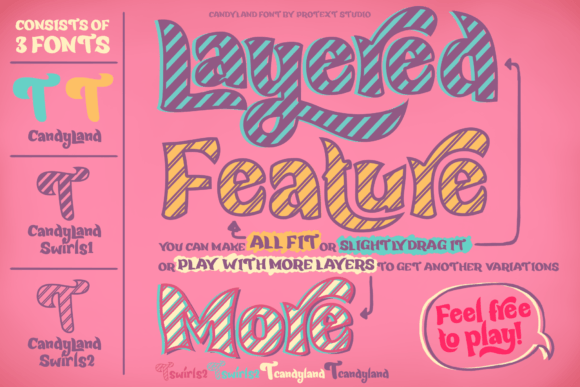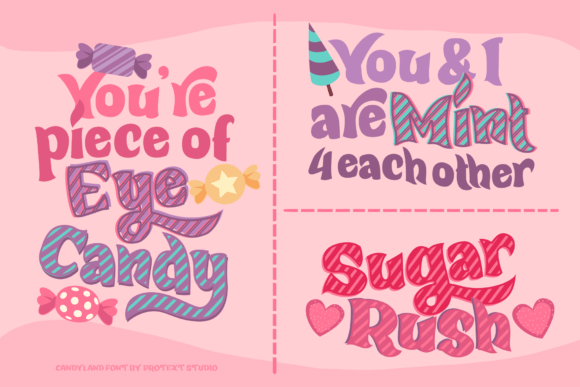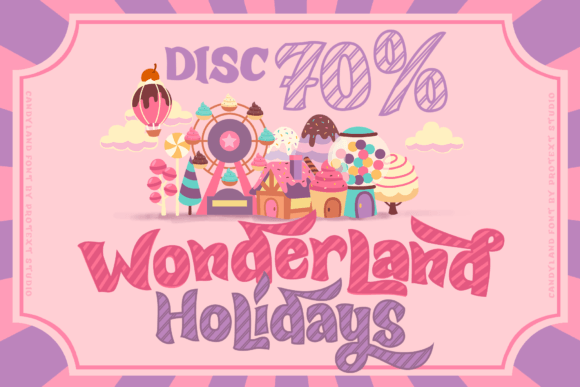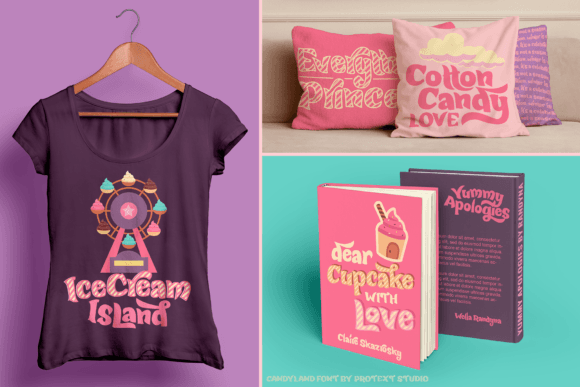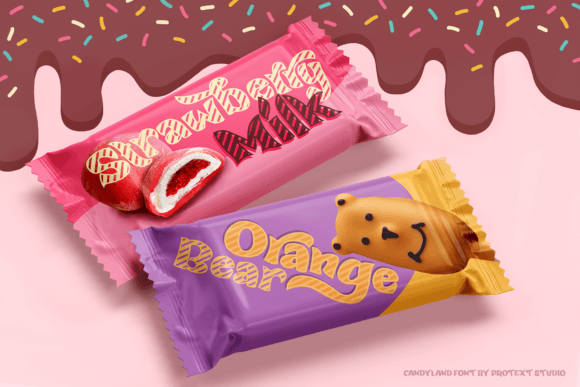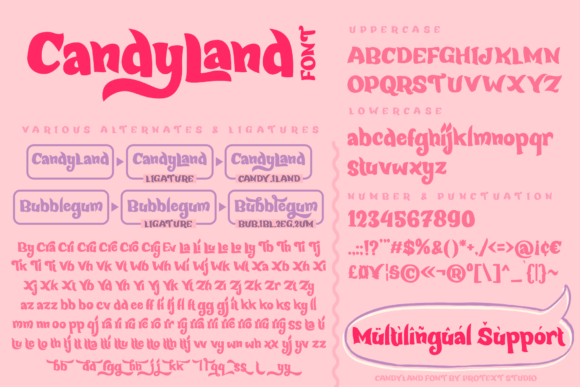
Discover the Sweetest Addition to Your Design Arsenal
Remember the joy of creating a magical world for kids, where gumdrop trees and lollipop forests come alive? For designers who have ever wanted to capture that whimsy in their projects, we have exciting news. Introducing the Candy Land Font, a delightful display font that brings a touch of childhood wonder to any design.
This charming font consists of three individual fonts that can be used on their own or layered together for a truly unique look. Plus, as a bonus, you’ll get 25 transparent PNG images to take your designs to the next level. With its PUA encoding, accessing the font’s amazing glyphs and ligatures is a breeze. Whether you’re designing for cartoon-related projects, children’s games, or theme park promotions, the Candy Land Font is the perfect choice to add a sweet and playful touch to your creations.
- Unique Characteristics: The font features colorful, whimsical characters, with bold lines and rounded edges, giving it a playful and childlike feel.
Candy Land Font Review
First of all, I want to say that the Candy Land font is a true delight. ✨ The whimsical, playful feel of the font immediately puts you in a cheerful mood. It’s perfect for any project that needs a lighthearted, family-friendly vibe.
Here are some of the things that I love about the Candy Land font:
- Its unique and quirky design is perfect for adding a touch of personality to your project.
- The font is highly customizable, allowing you to adjust the size, color, and style to fit your needs.
- It’s incredibly versatile and can be used for a wide range of applications, from logos and branding to digital art and graphics.
Of course, no font is perfect, and the Candy Land font has some limitations:
- It may not be suitable for formal or professional applications, as it can come across as too playful or childish.
- The font can be a bit difficult to read in certain contexts, such as small text or dense blocks of text.
- It may not be compatible with all devices or platforms, so be sure to test it thoroughly before using it in a production environment.
Overall, I would highly recommend the Candy Land font for any project that needs a fun, lighthearted touch. While it may have some limitations, its unique design and versatility make it a great choice for designers looking to add a little personality to their work.
Tip: Use the Candy Land Font to add a playful touch to your designs, especially for children’s party invitations, birthday cards, and other festive designs.
Tip: Use the Candy Land Font to create custom graphics, logos, and other designs that require a playful and whimsical feel.
Tip: Use the Candy Land Font to add a pop of color and whimsy to your presentations and documents.
The Candy Land Font is perfect for:
- Birthday cards and gift tags
- Festive designs and graphics
- Playful logos and branding